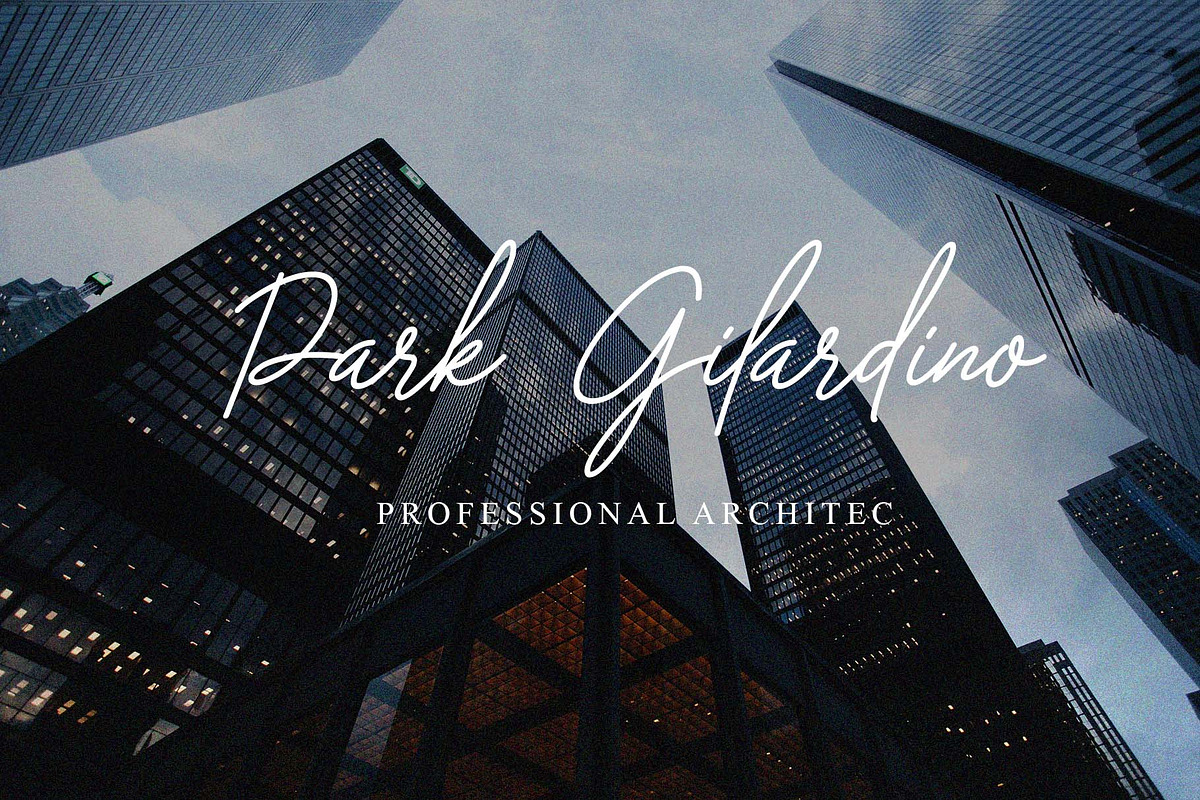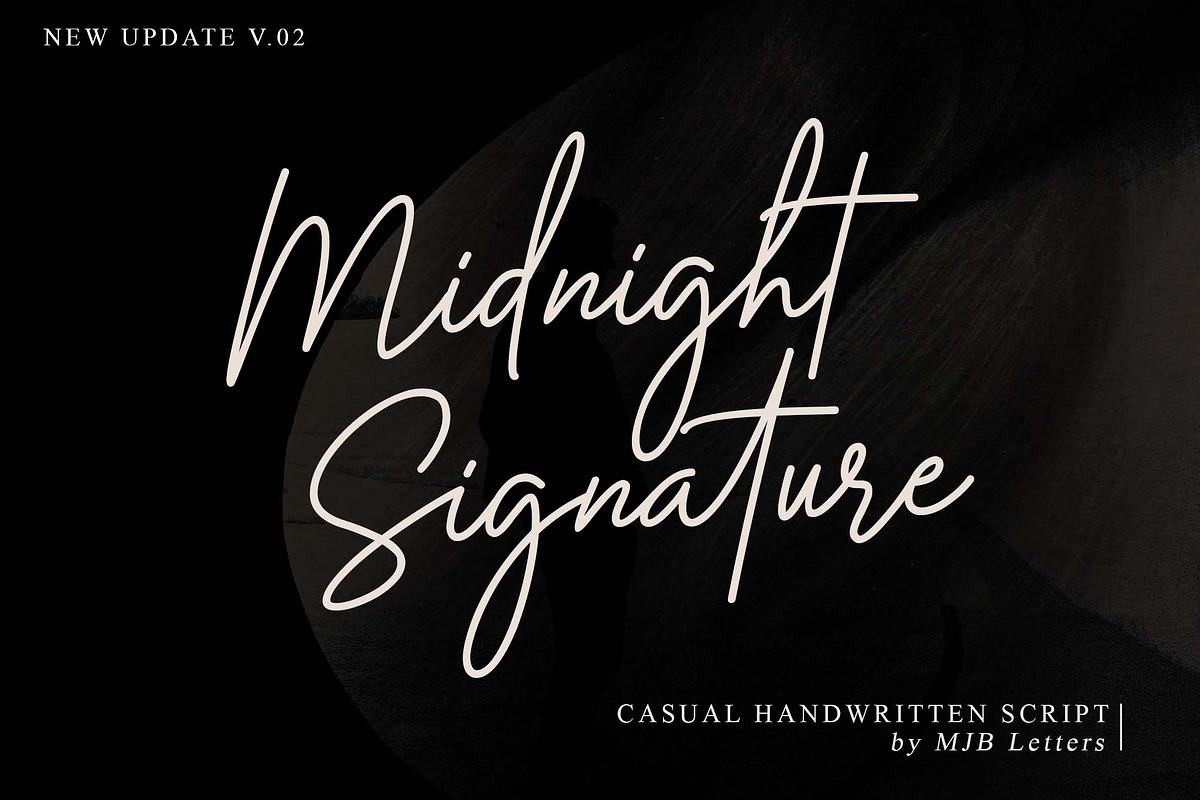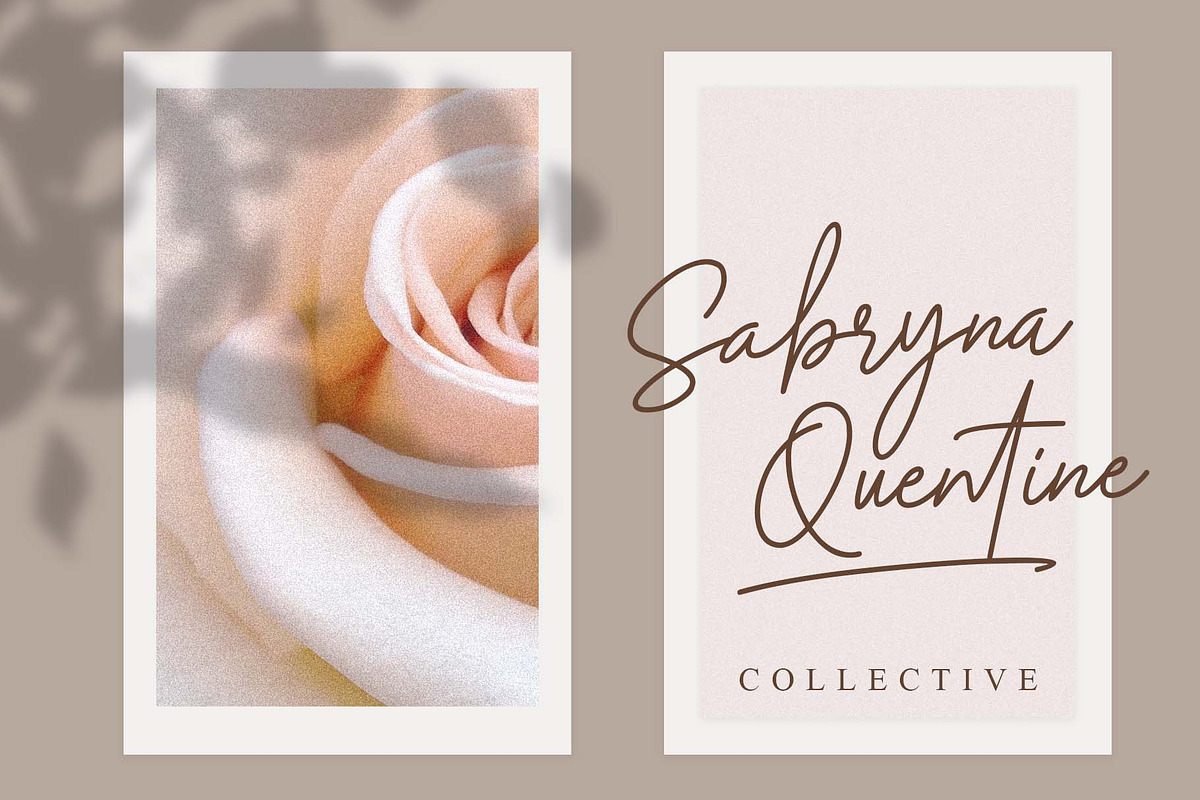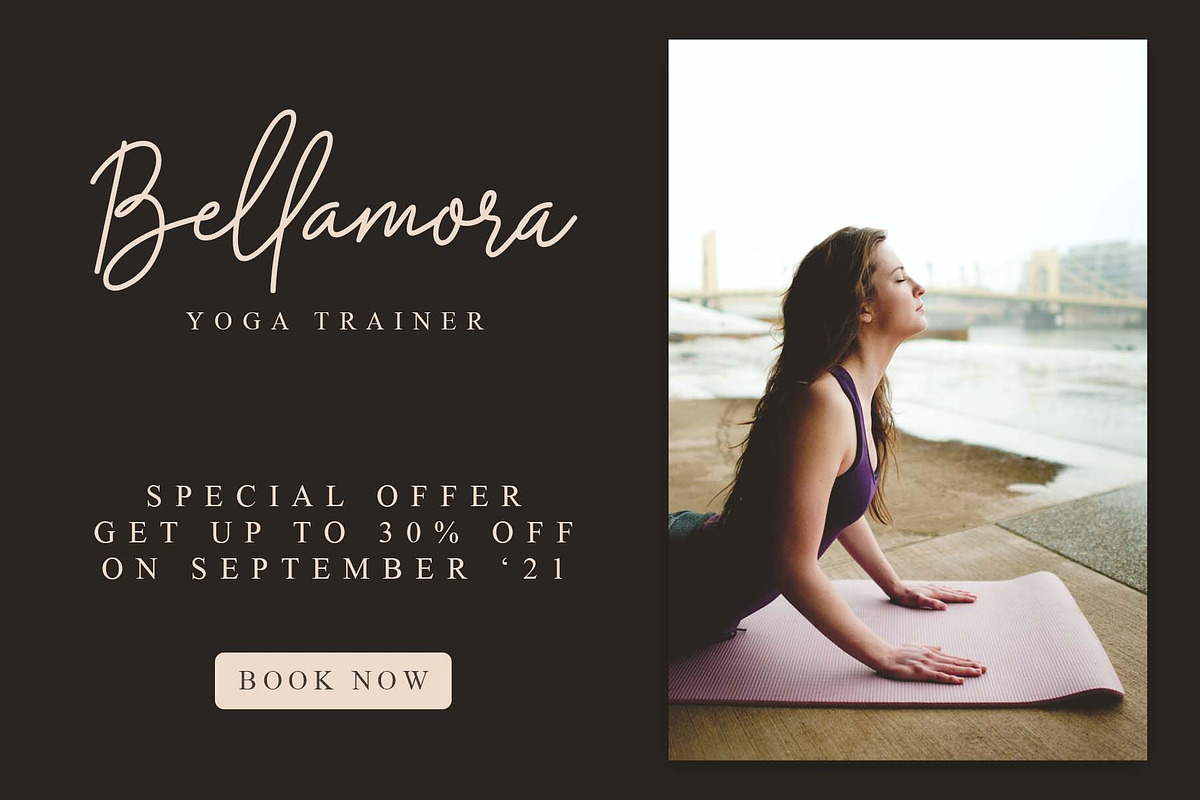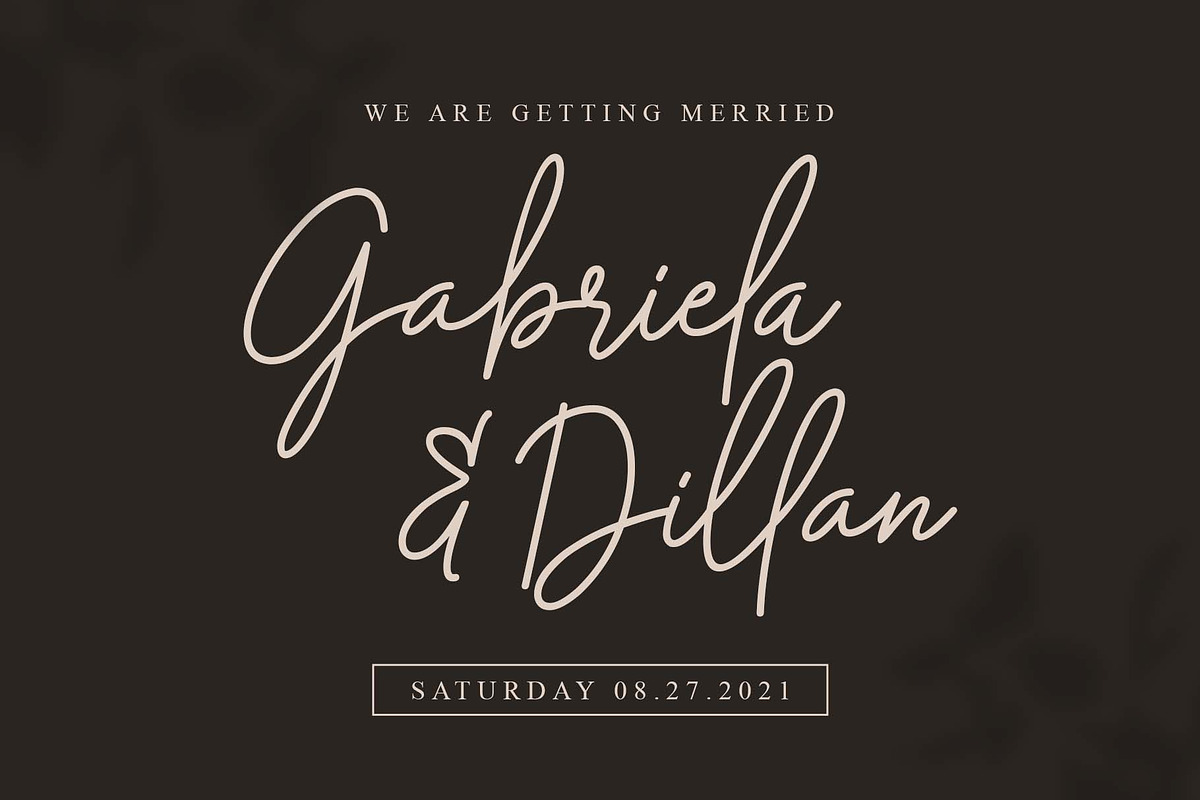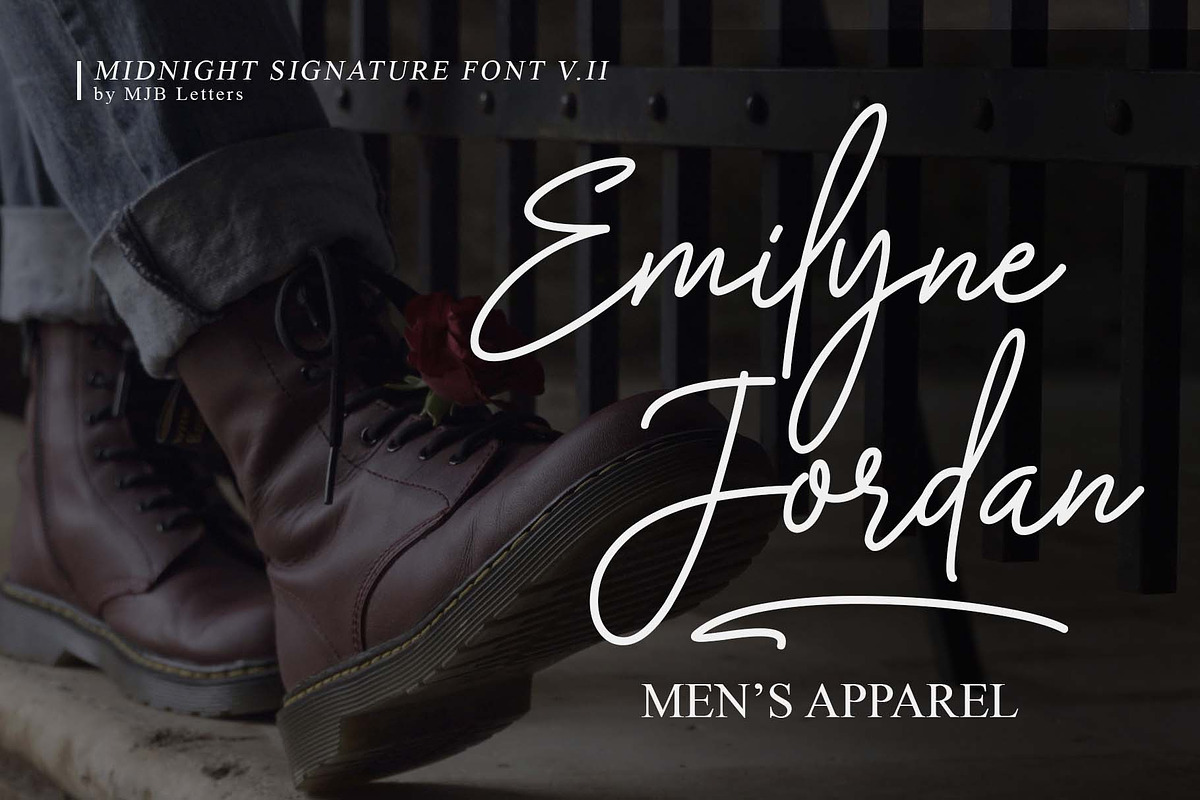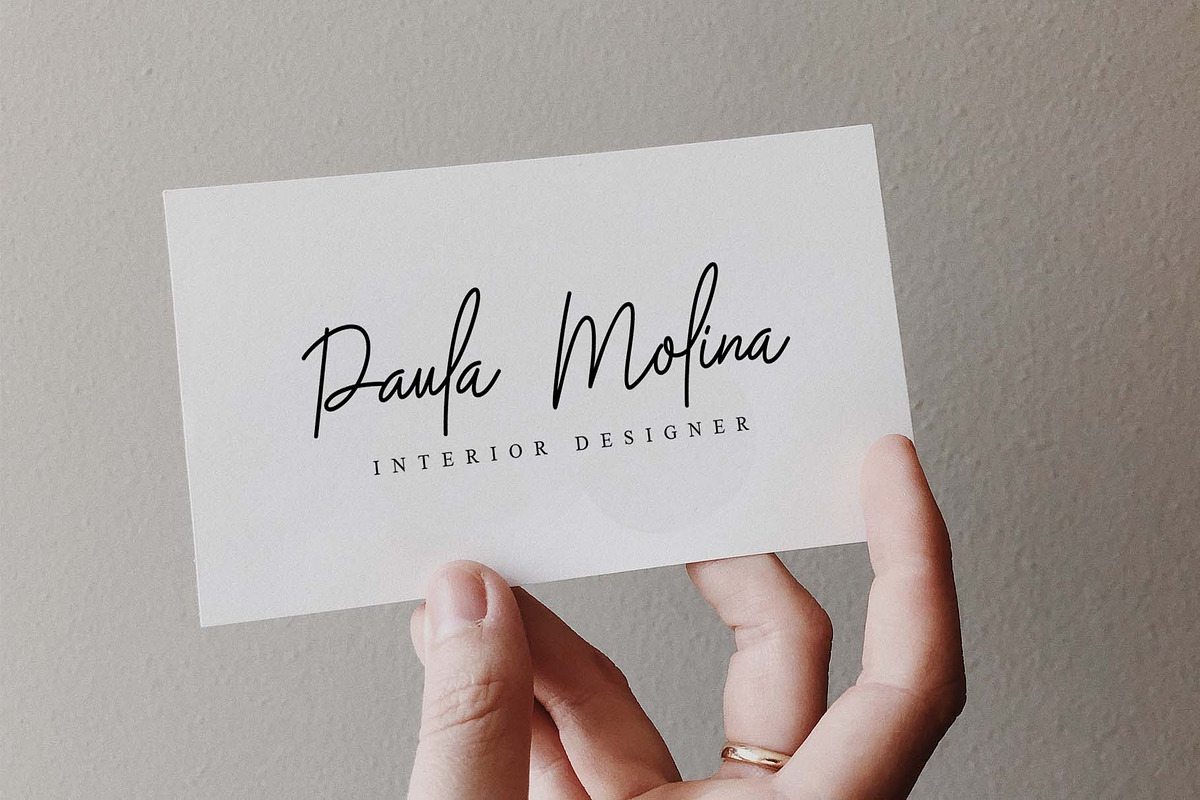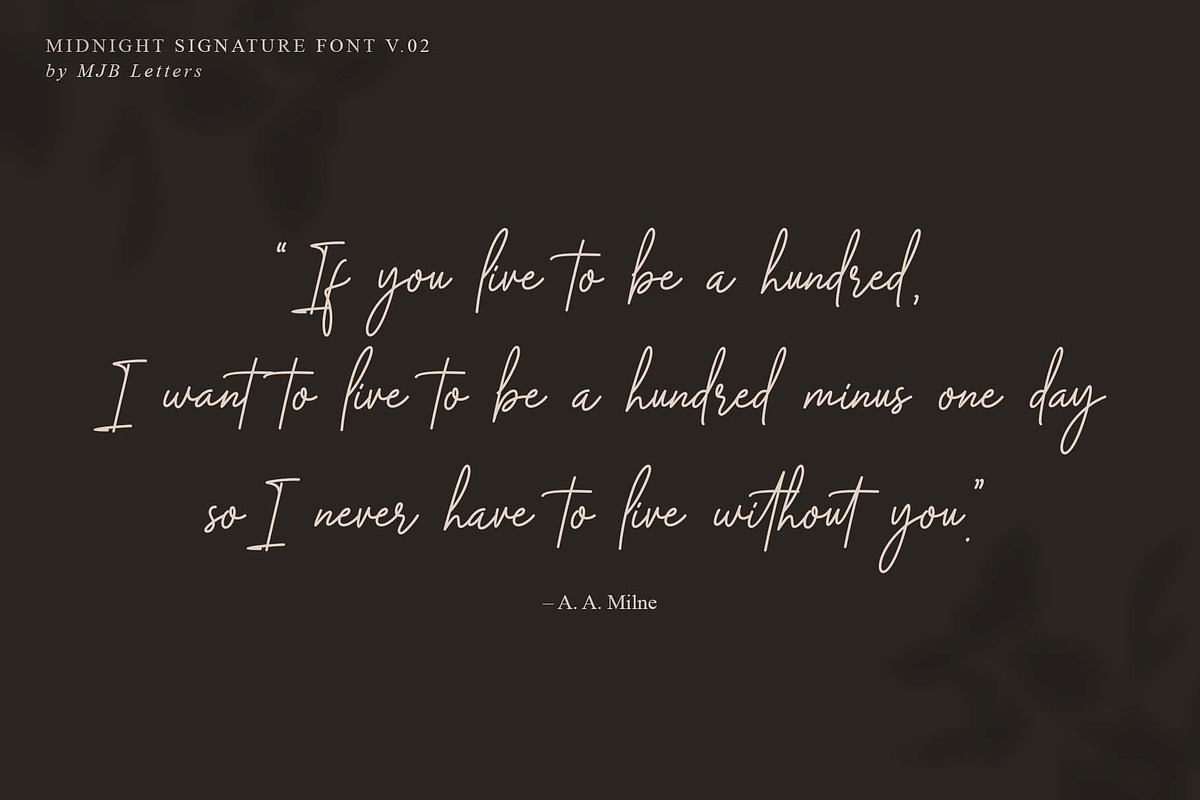
Midnight Signature Font
Midnight Signature is a handwritten script with a natural & stylish flow. It’s the perfect font for adding an authentic touch to any design project.
This font is perfect for branding designs, logo designs, wedding designs, social media posts, packaging designs, posters, quotes, watermarks, catalogues and any others.